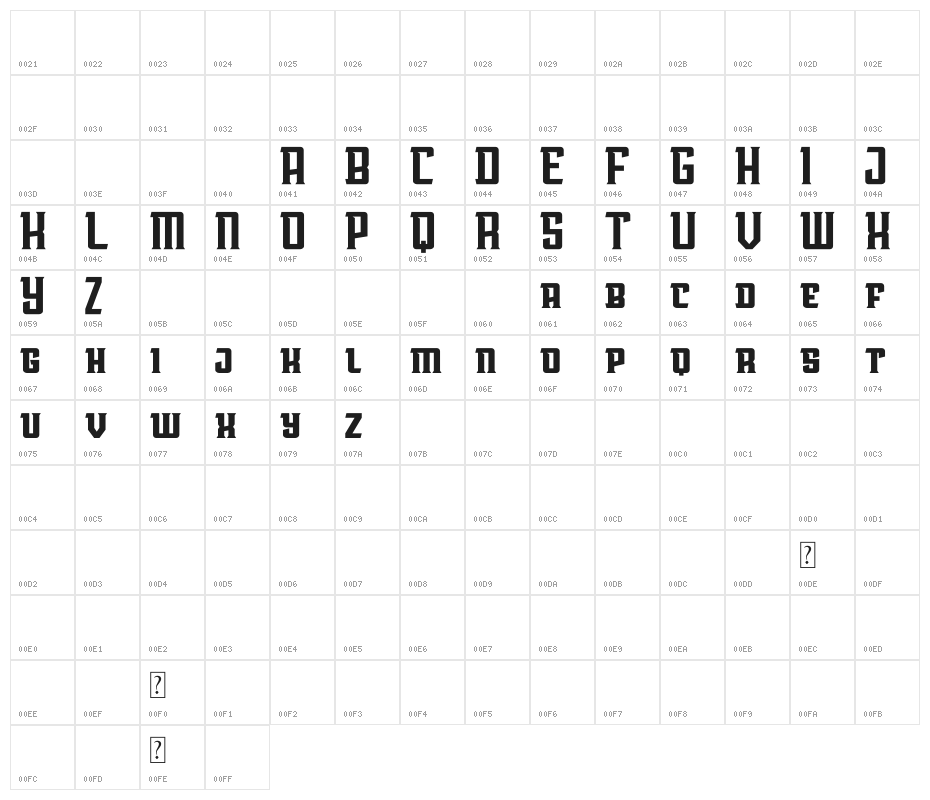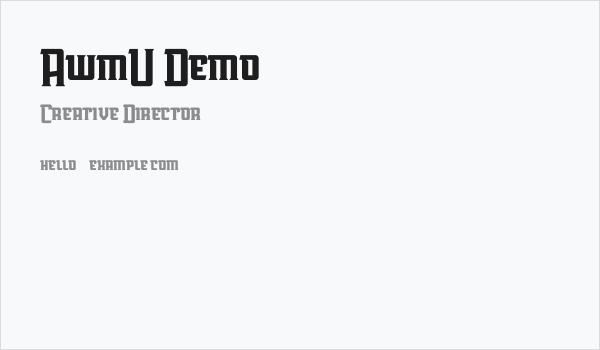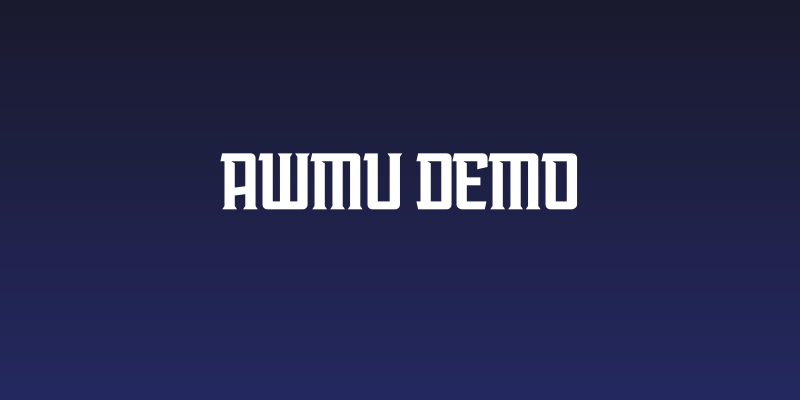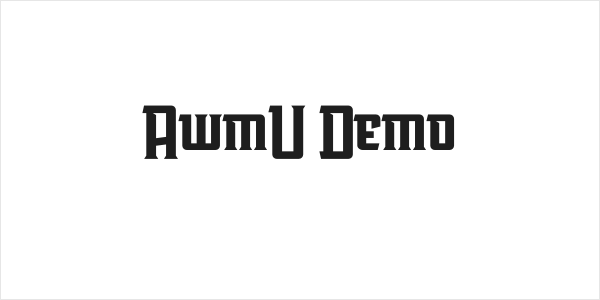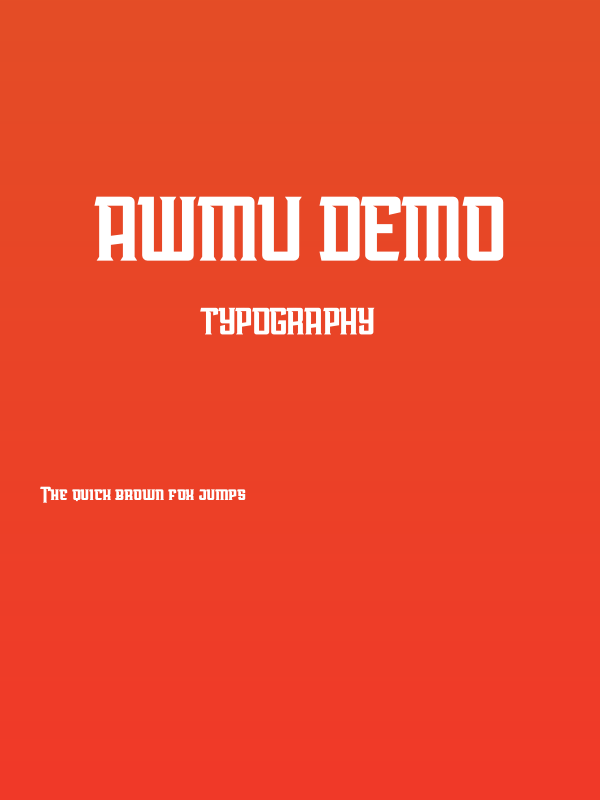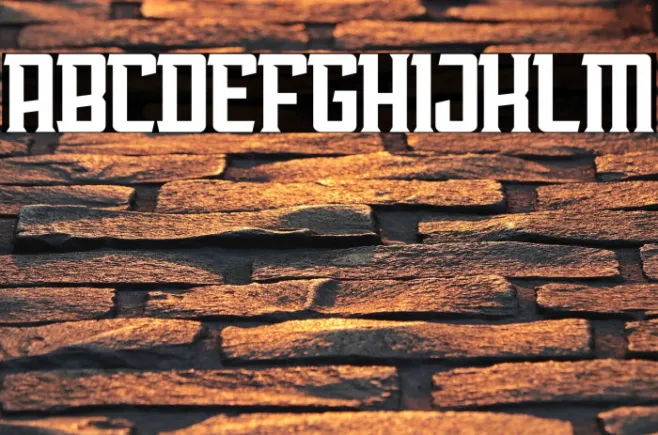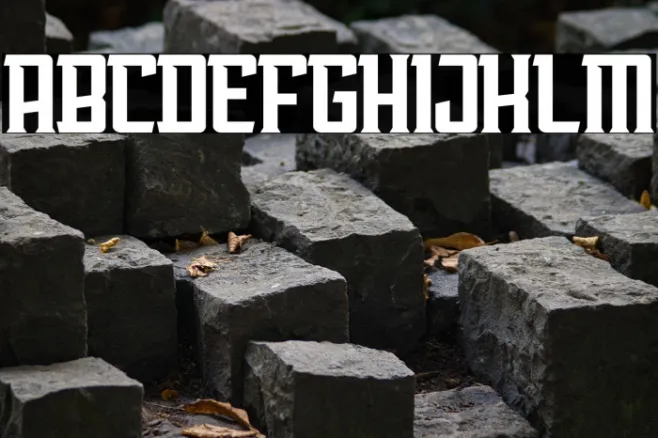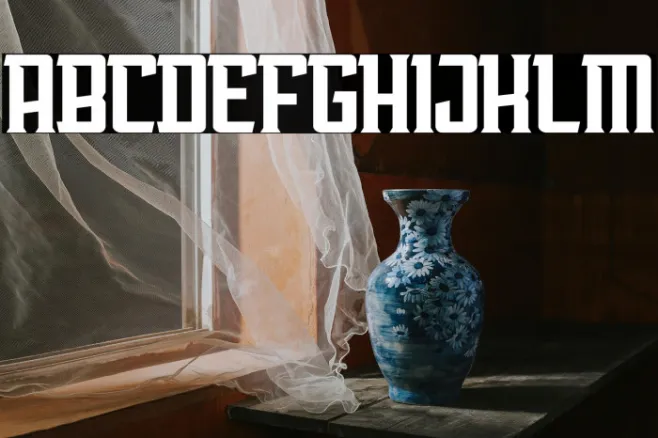
AwmU Demo Font
AwmU Demo Description
This font features a bold and striking design with a strong presence. The characters are crafted with sharp, angular edges and a consistent stroke width, giving it a robust and authoritative appearance. The uppercase letters are particularly prominent, with a uniform height and width that create a cohesive look. The overall style is reminiscent of traditional blackletter fonts, yet it maintains a modern twist with its clean lines and lack of ornate detailing. This font is ideal for projects that require a bold statement, such as headlines, posters, or branding materials.
| Proposed Projects | Ideal for headlines, posters, branding, and any project needing a strong visual impact. |